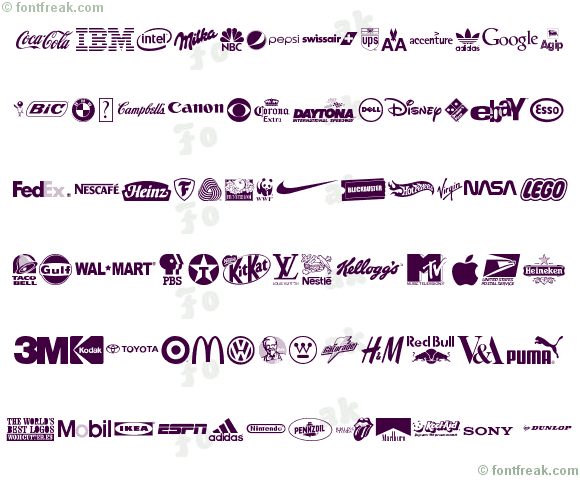
the world's best logos
The world's best logos font by Woodcutter Manero is a striking display typeface that captures attention with its unique aesthetic. Characterized by bold strokes and a balanced contrast, this font features a distinctive blend of modern and classic design elements. The letterforms are well-spaced, allowing for clarity and readability, making it suitable for a variety of applications. The decorative elements within the typeface lend an artistic flair, enhancing its overall appeal.
This font is ideal for a range of creative projects. Graphic designers can utilize the world's best logos font for branding initiatives, ensuring logos stand out in competitive markets. Small business owners may find it perfect for creating eye-catching signage or promotional materials that attract customers. Content creators can effectively use this typeface for social media graphics and blog headers, providing a polished look that enhances aesthetic value. Additionally, its bold and dynamic nature makes it a fantastic choice for movie posters, where capturing audience interest is paramount.
Targeted primarily at graphic designers, small business owners, and content creators, this font plays a crucial role in elevating visual communication. Its versatility allows it to adapt to various contexts while maintaining an impactful presence, making it a valuable addition to any designer's toolkit.
What sets the world's best logos font apart is its ability to blend artistic creativity with functionality. The careful attention to detail in its design ensures that it can convey messages effectively while remaining visually captivating. For those seeking to enhance their projects with a distinctive touch, the world's best logos font free download offers an exceptional opportunity to incorporate a high-quality typeface into their designs without any cost.